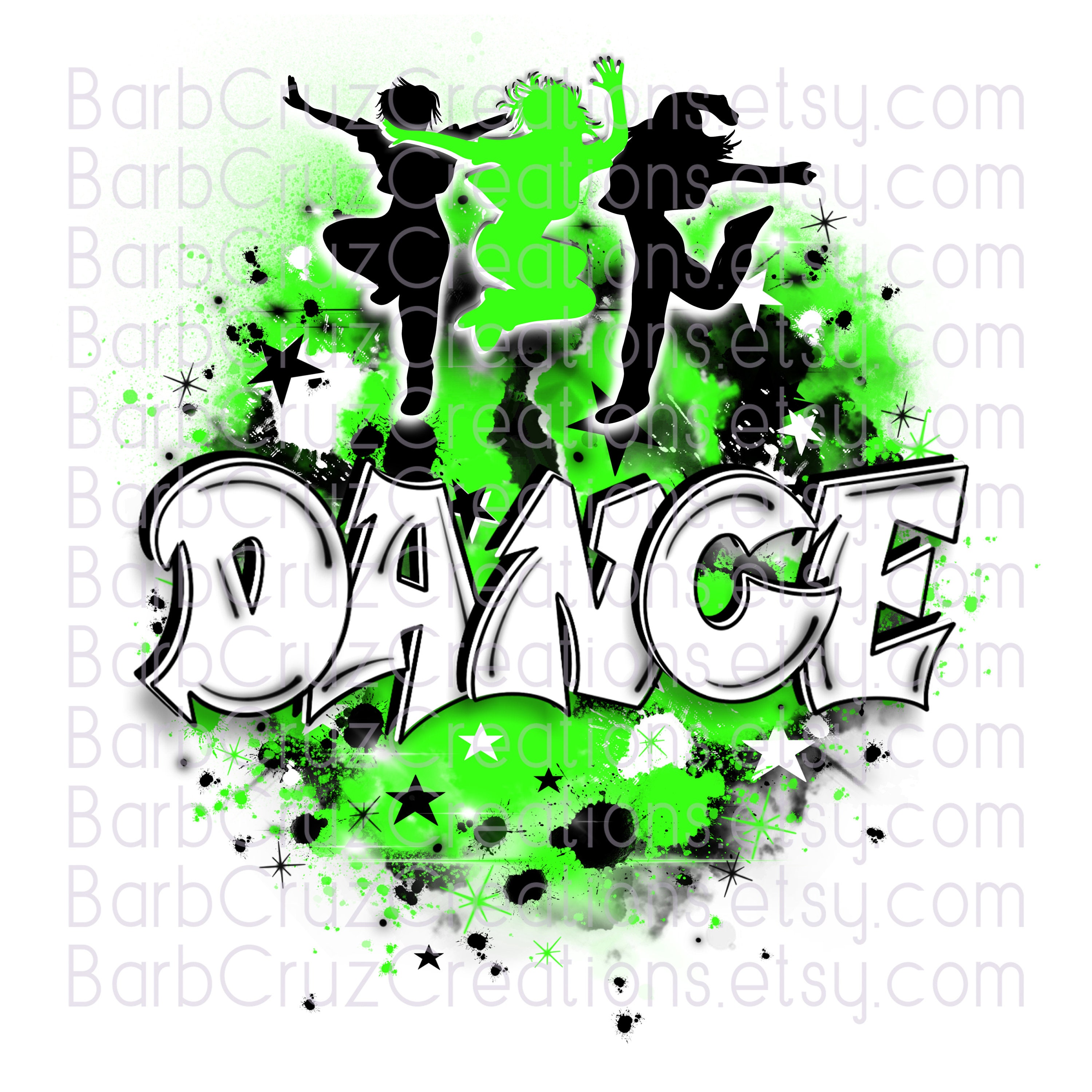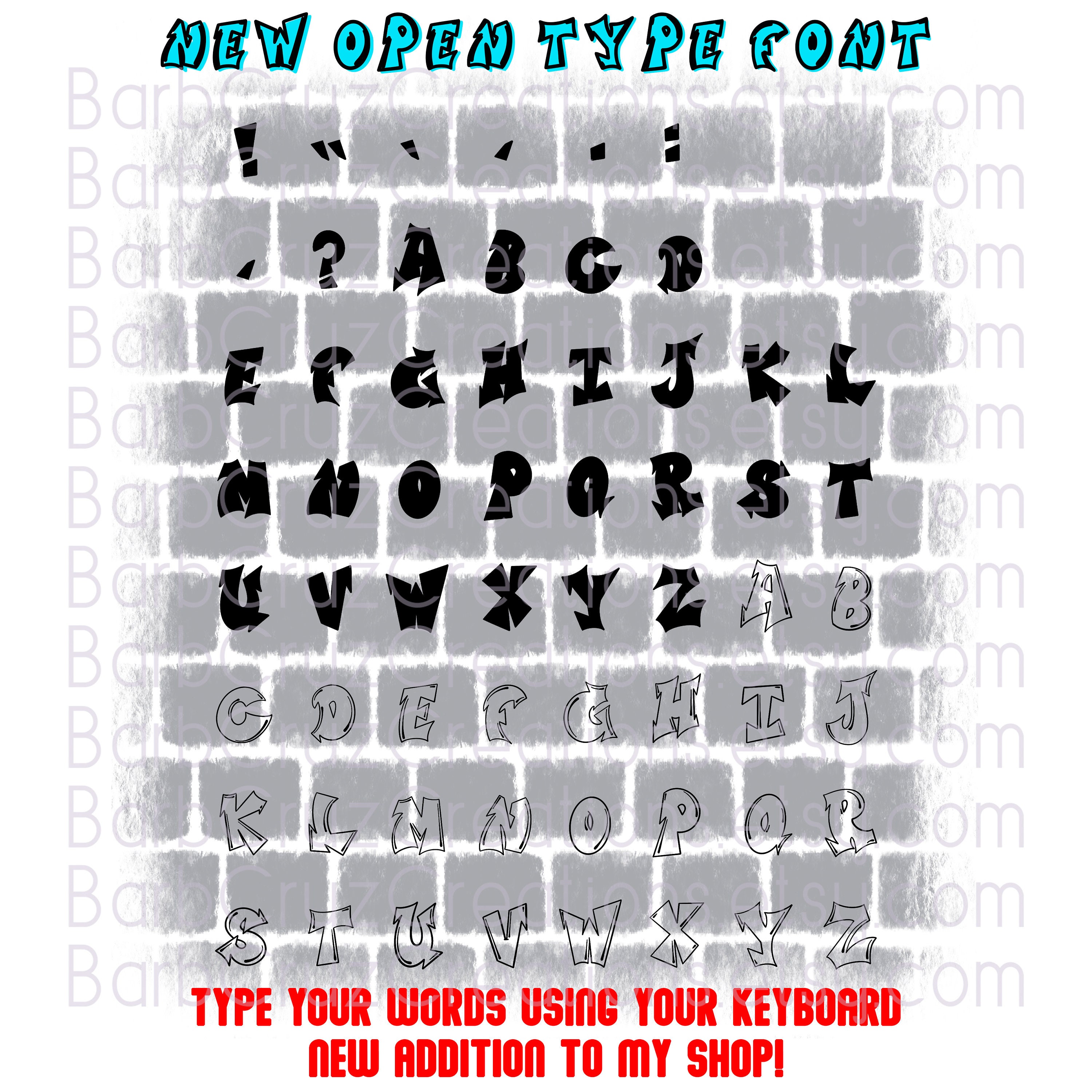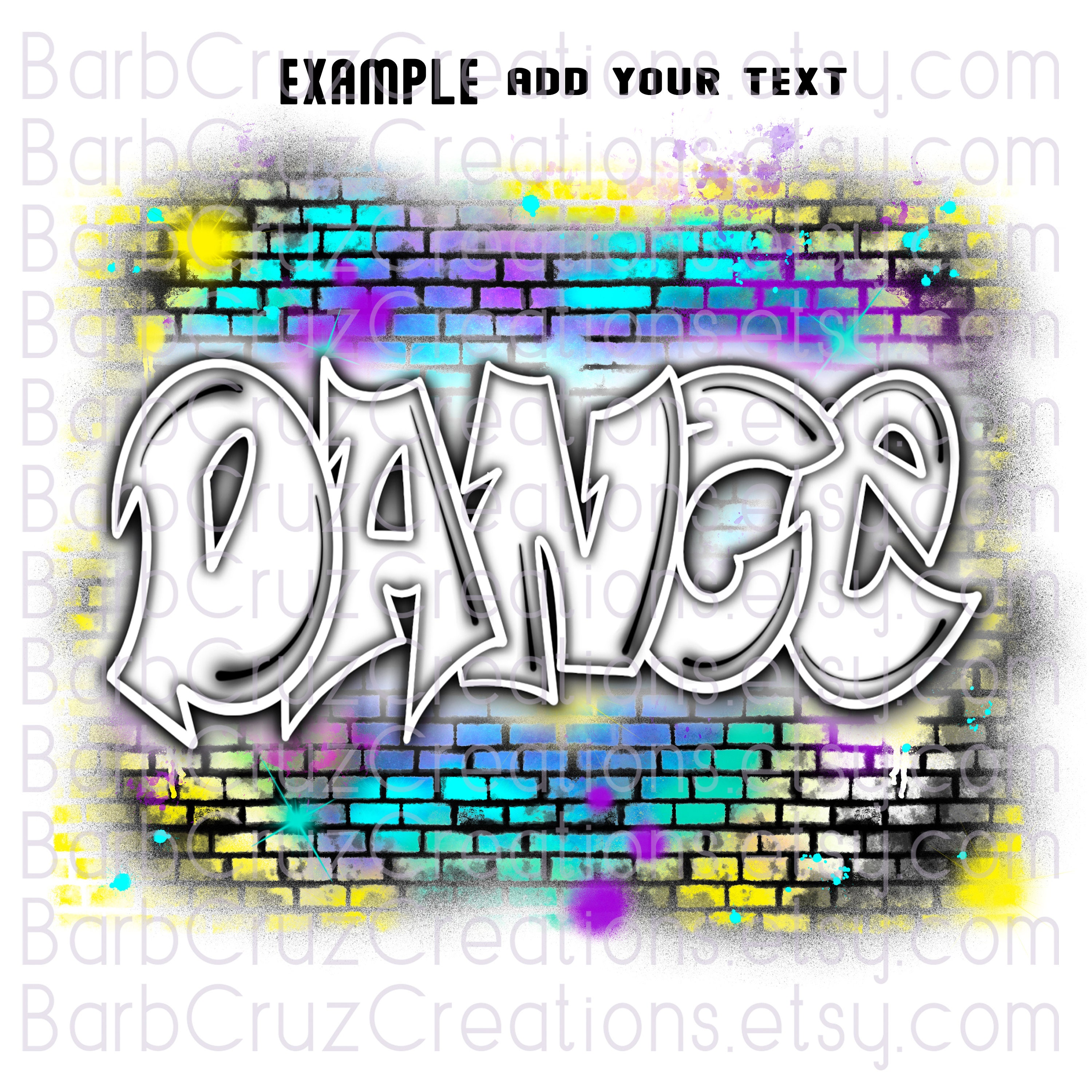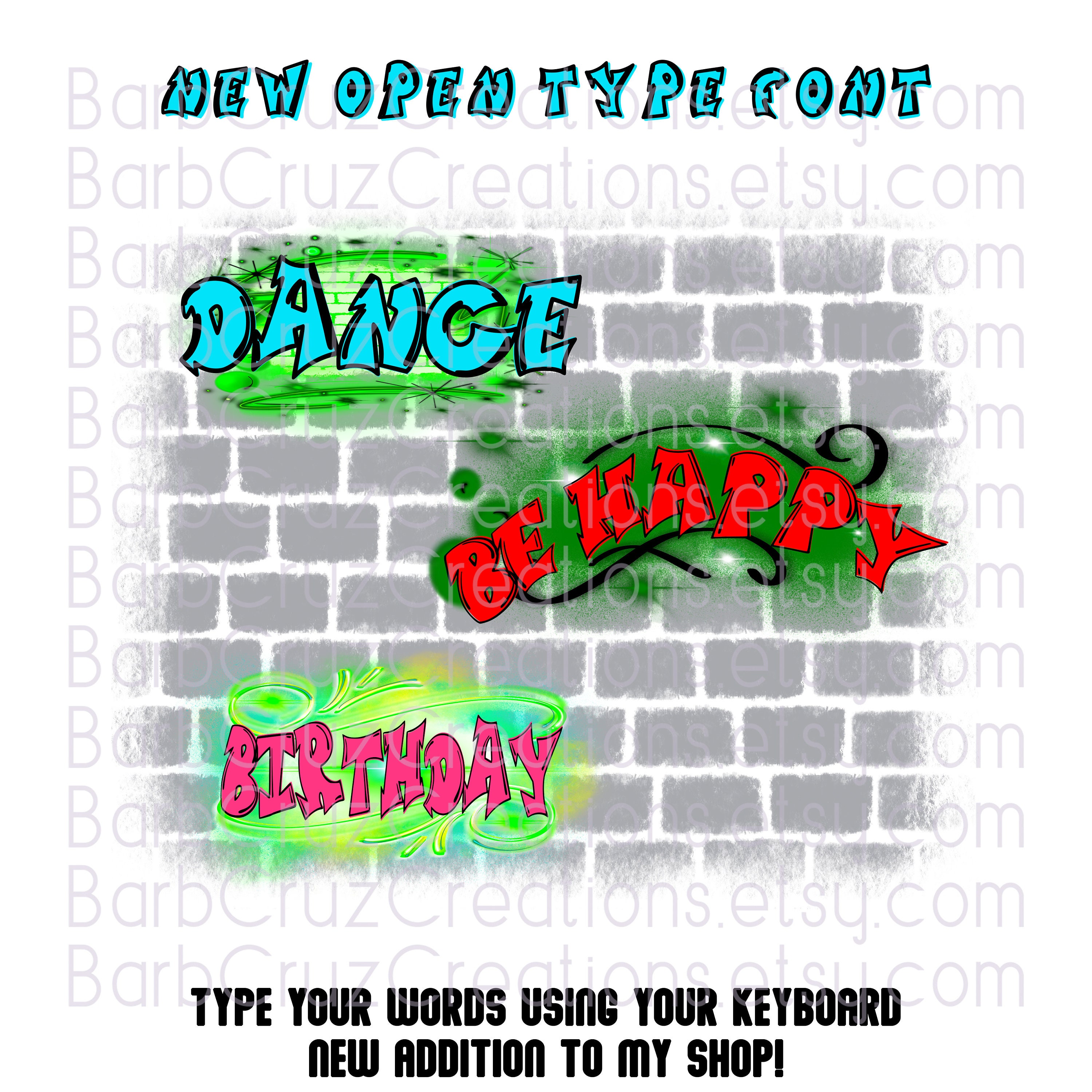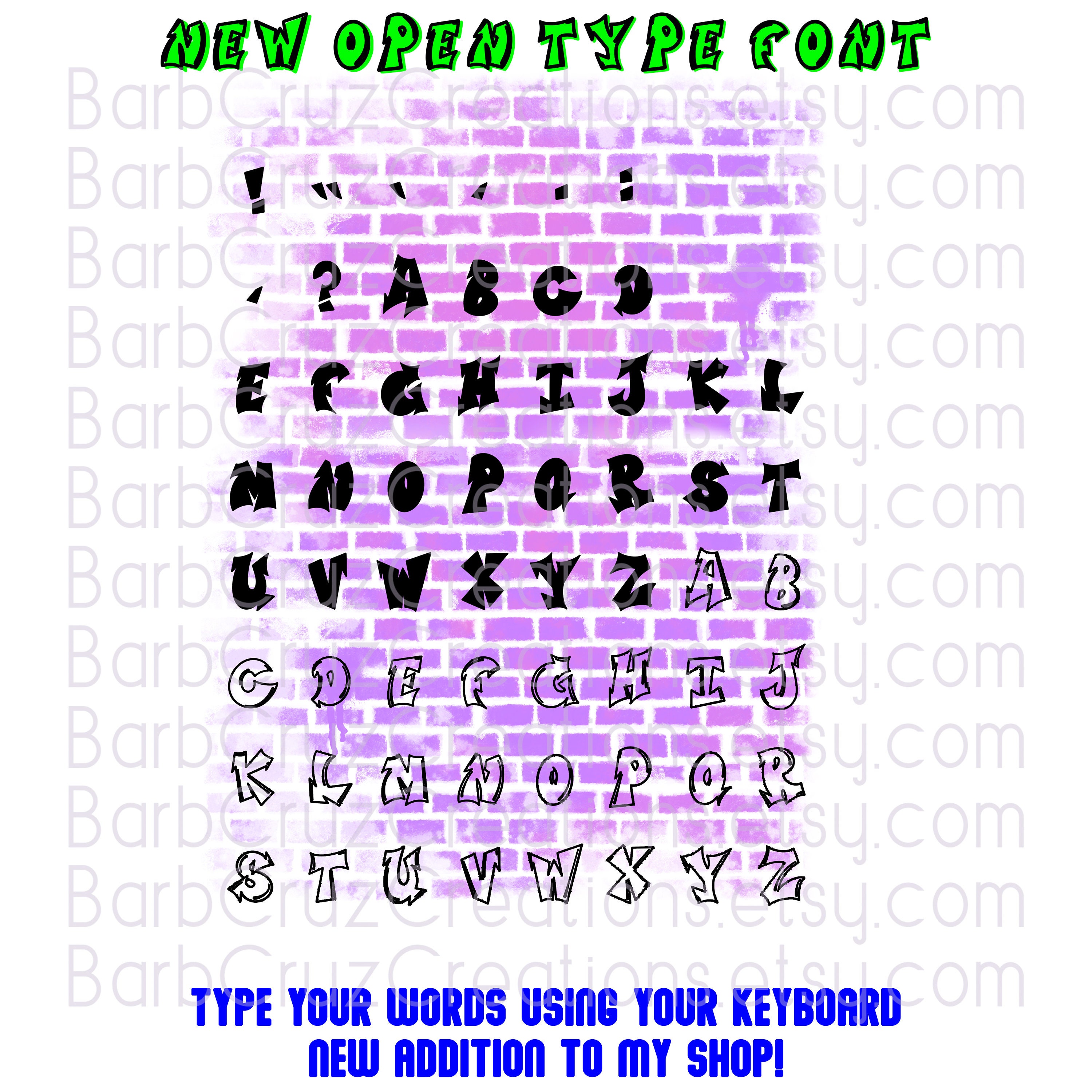
Airbrush font png, Graffiti Letters Open Font Type, Add to Airbrush, Boxy, Outline & Solid, Keyboard Fonts Type out your word, Alphabet 90's
There are 2 fonts bold SOLID and the outline CLEAR inside with accents. Layer these 2 fonts to create your desired look.
Add to a background use for airbrush monogram, a personal message, name, event, or message to make custom
Use your design program to change color, texture, and add accents to give you graffiti font more effects.